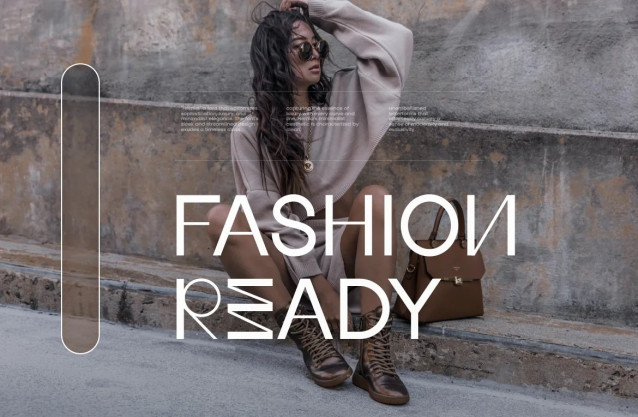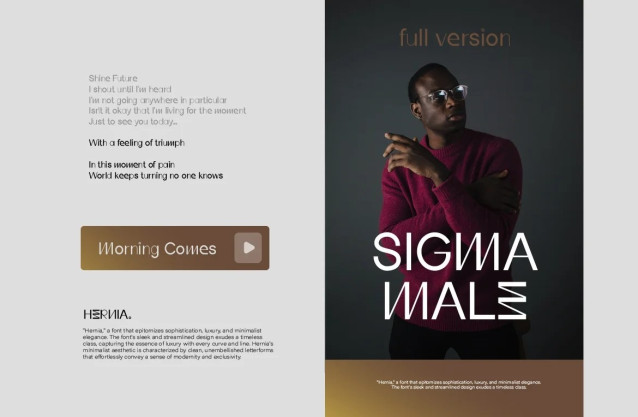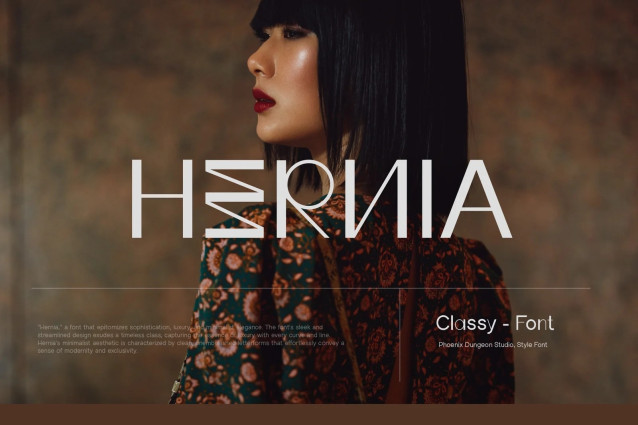
Hermia Font
Hernia Font is a sophisticated sans-serif font that combines timeless elegance with modern fashion sensibilities. Its clean, well-defined letterforms exude a sense of class and refinement, making it ideal for high-end branding, editorial design, and luxury fashion projects. The font’s sleek lines and balanced proportions evoke a classic aesthetic, while subtle design details give it a contemporary, stylish edge. Perfect for upscale magazines, logos, and formal presentations, Hernia captures the essence of both classic and classy typography, offering a polished and professional look that stands out in fashion-forward designs.